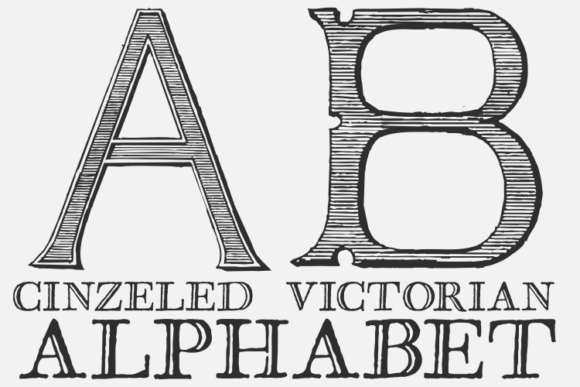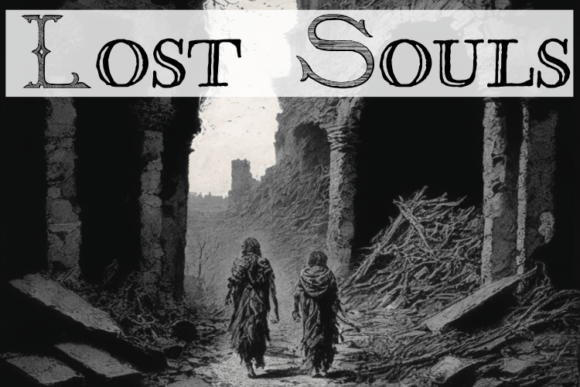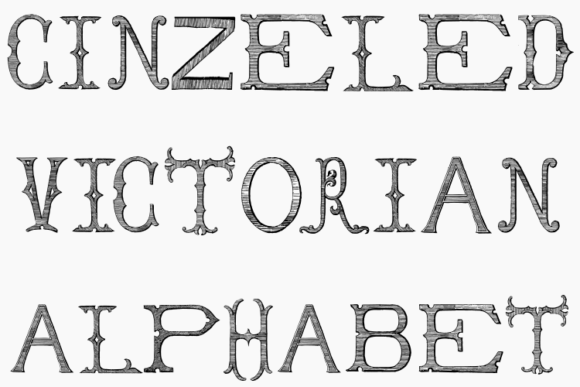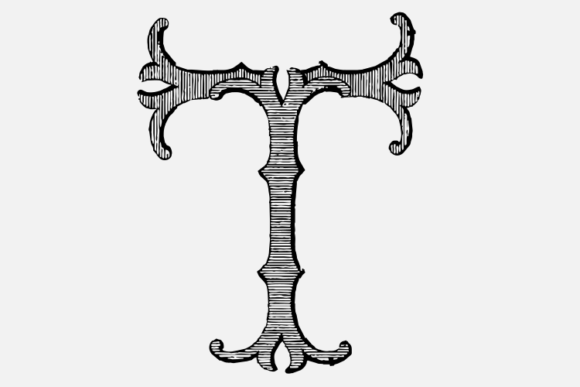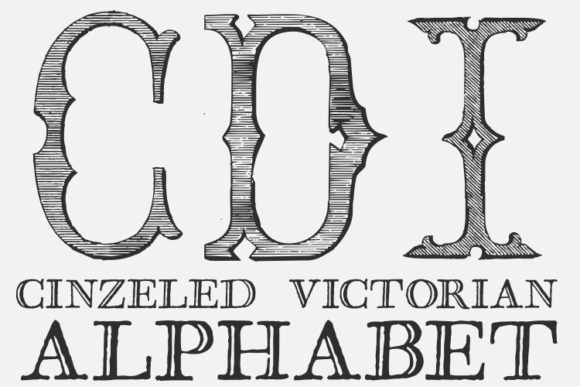
Cinzeled Victorian Alphabet
Font Family by Intellecta Design
Cinzeled Victorian Alphabet is an incredibly cool and classic display font. Elegant and distinct, this font will most certainly elevate your creations. Add it confidently to your projects which need a vintage taste, and you will love the results